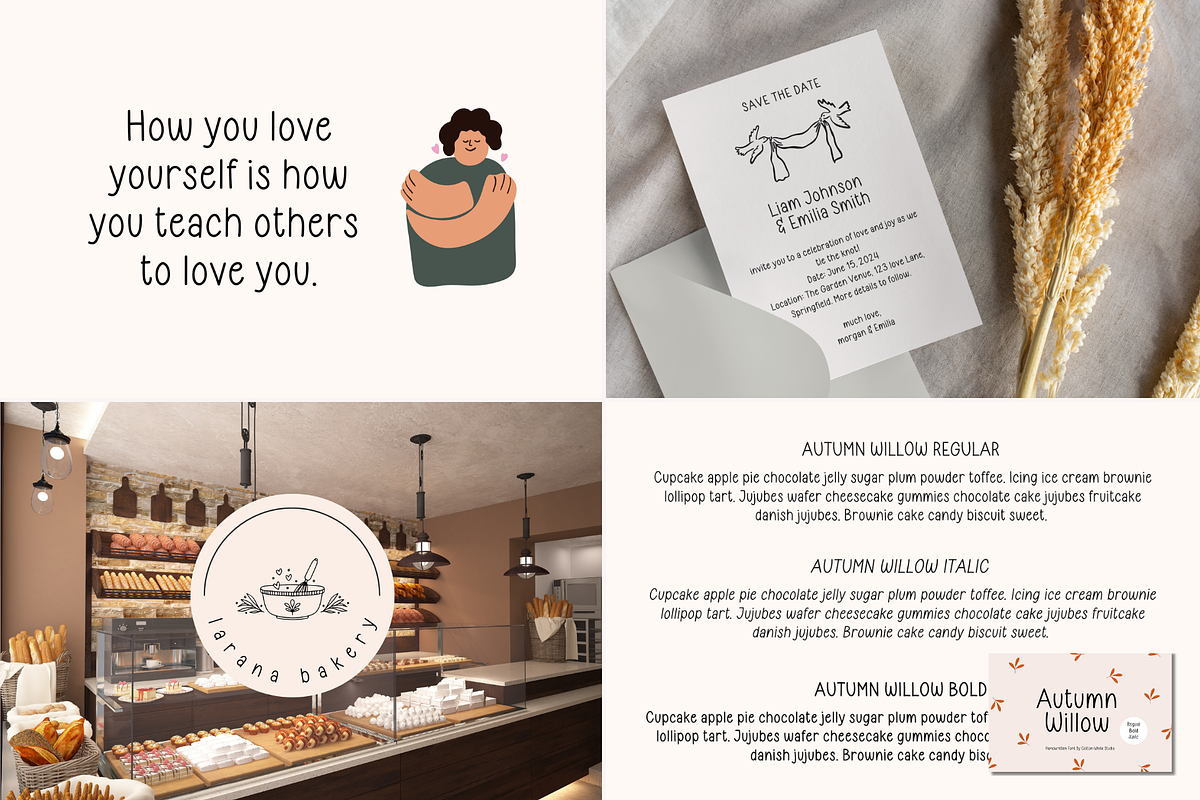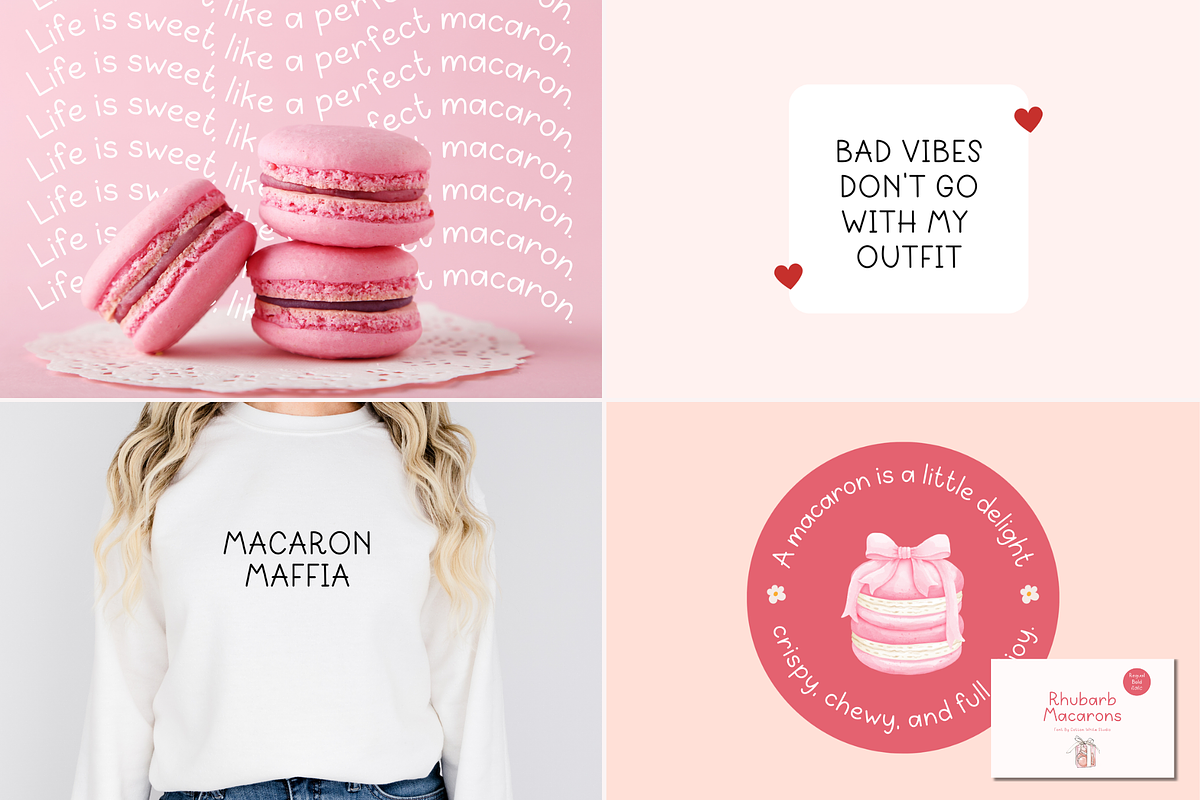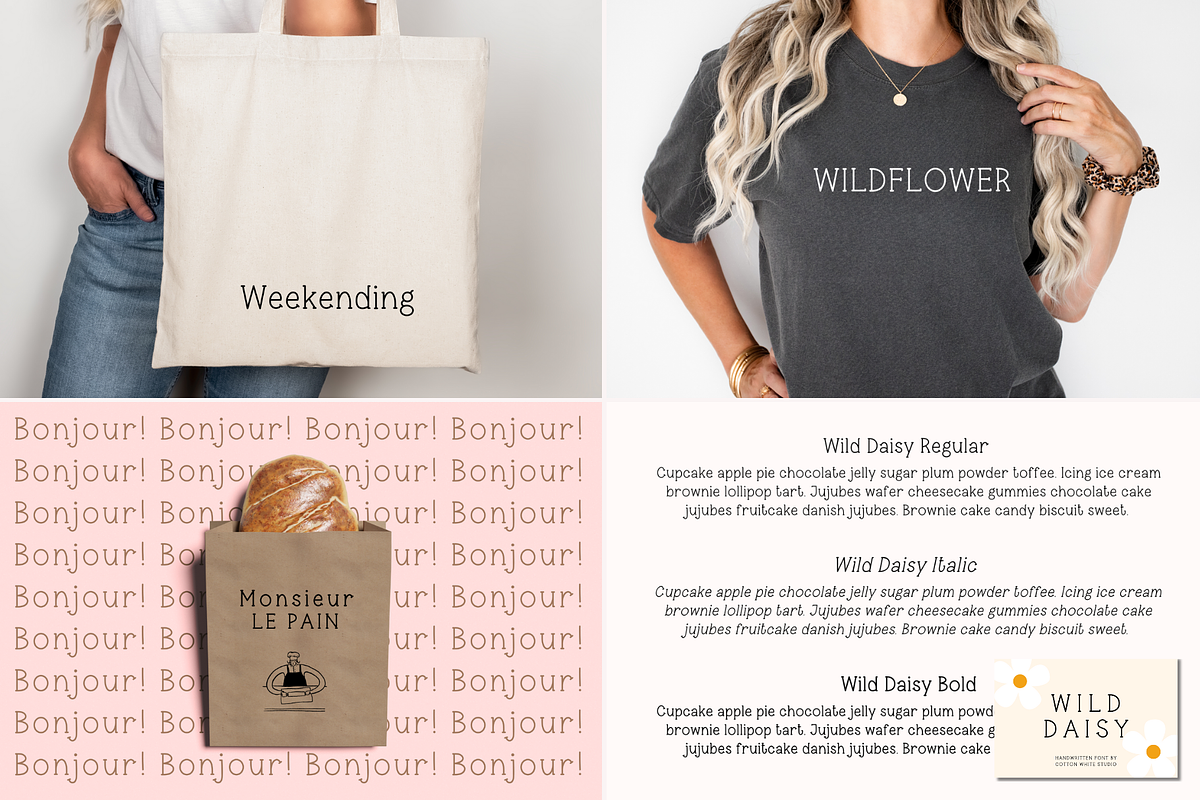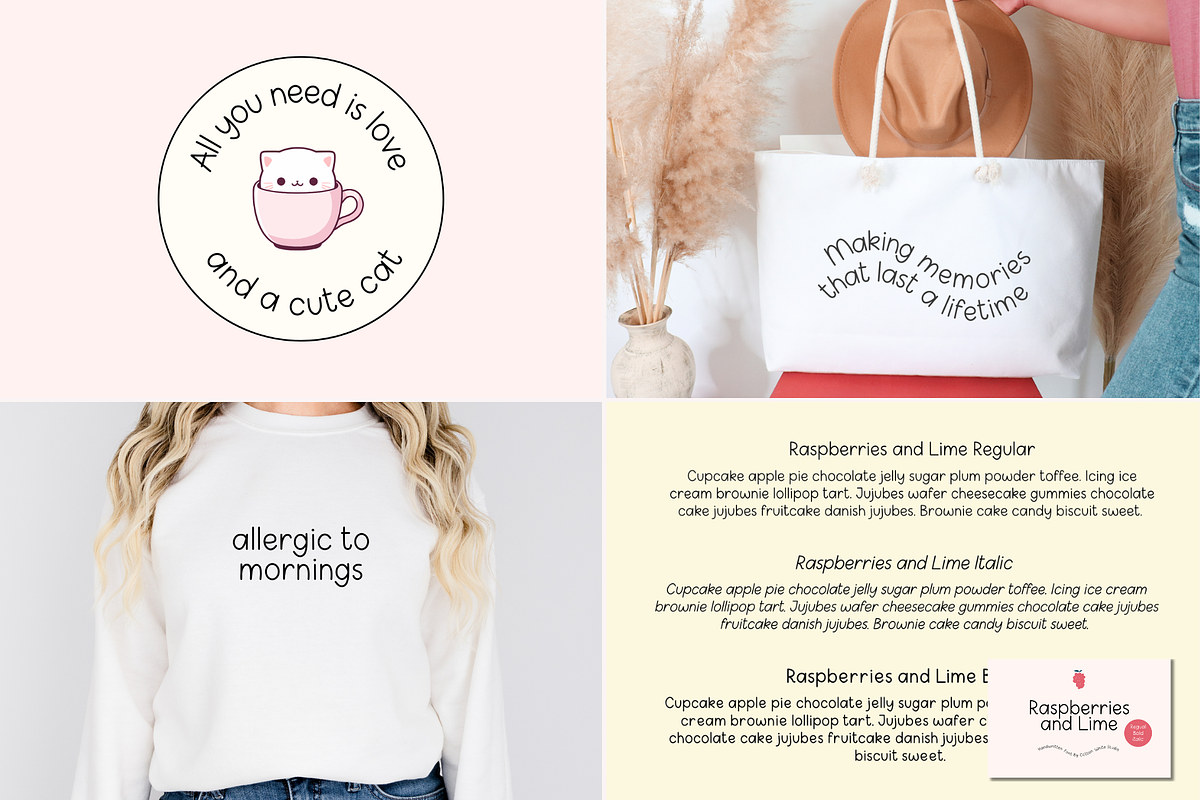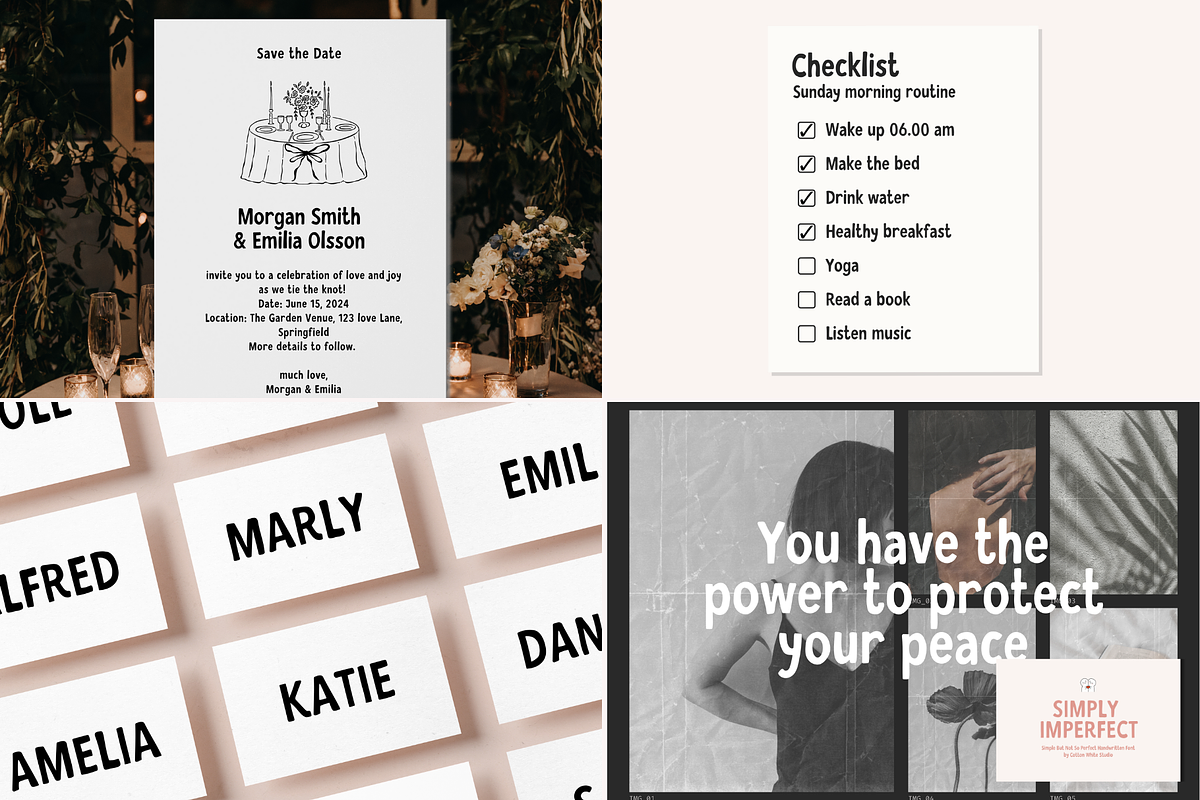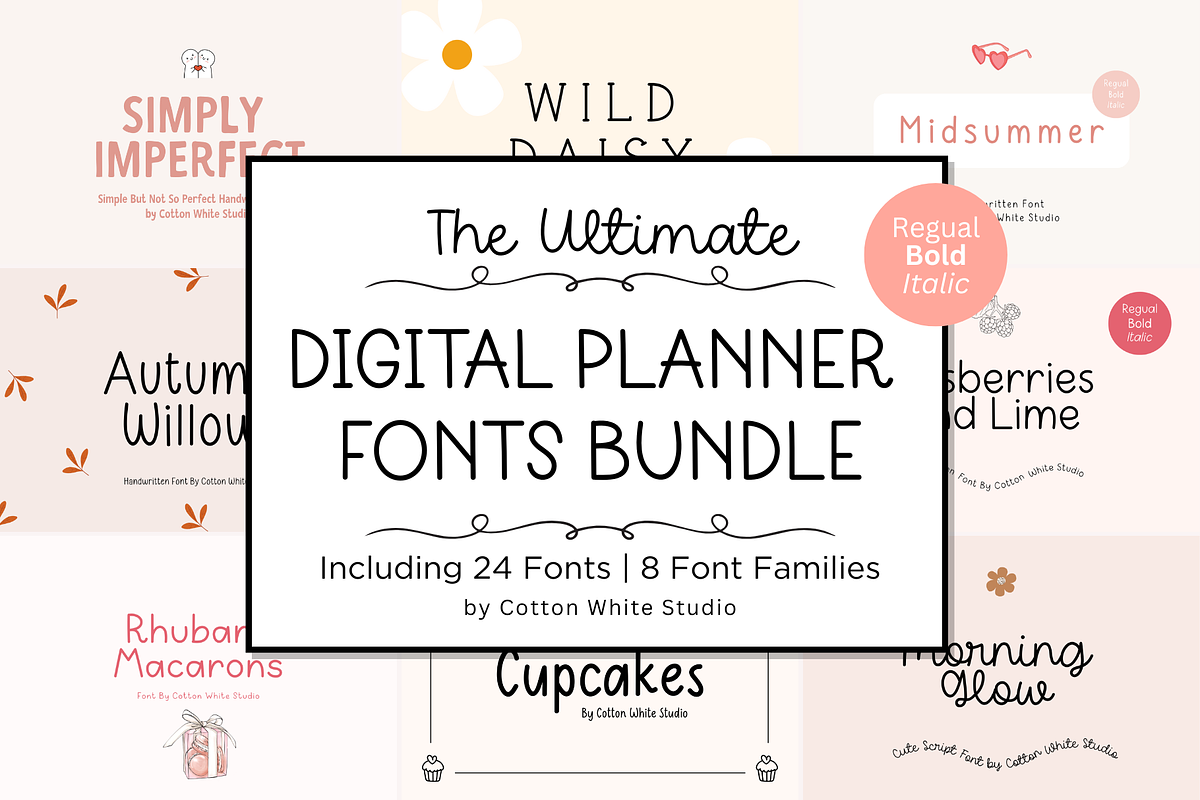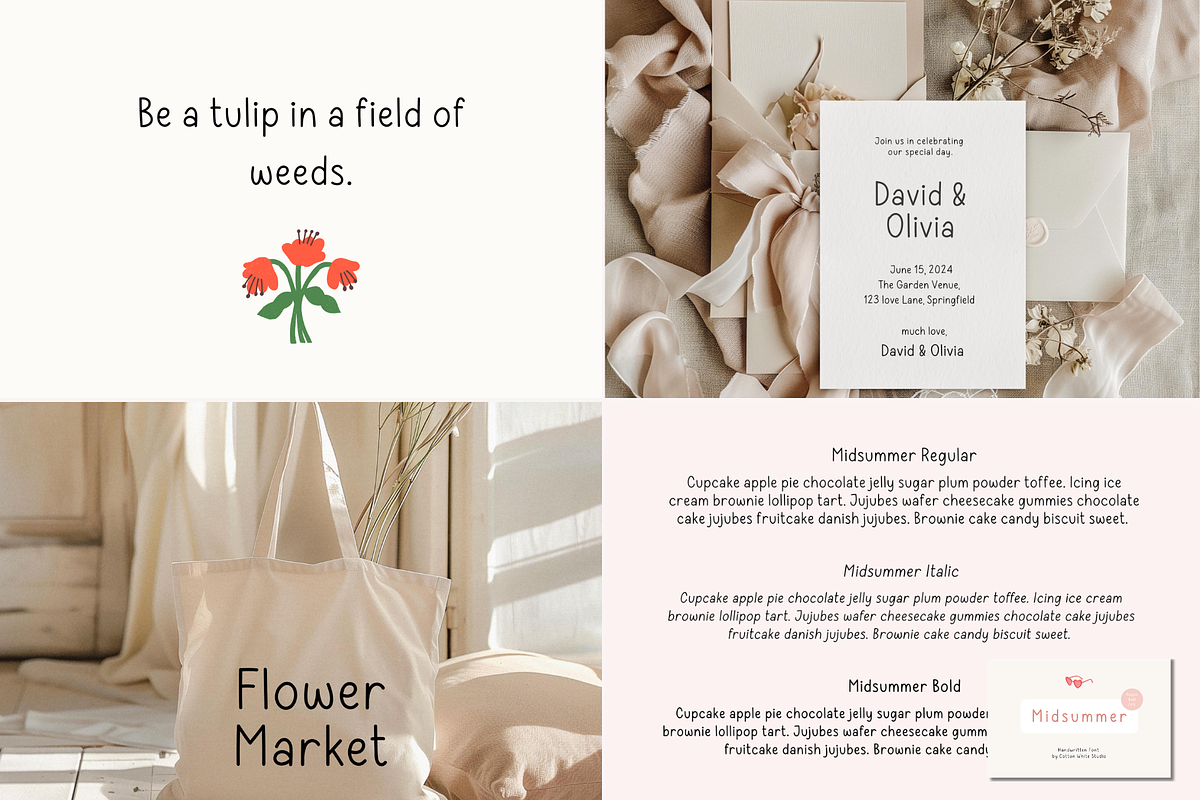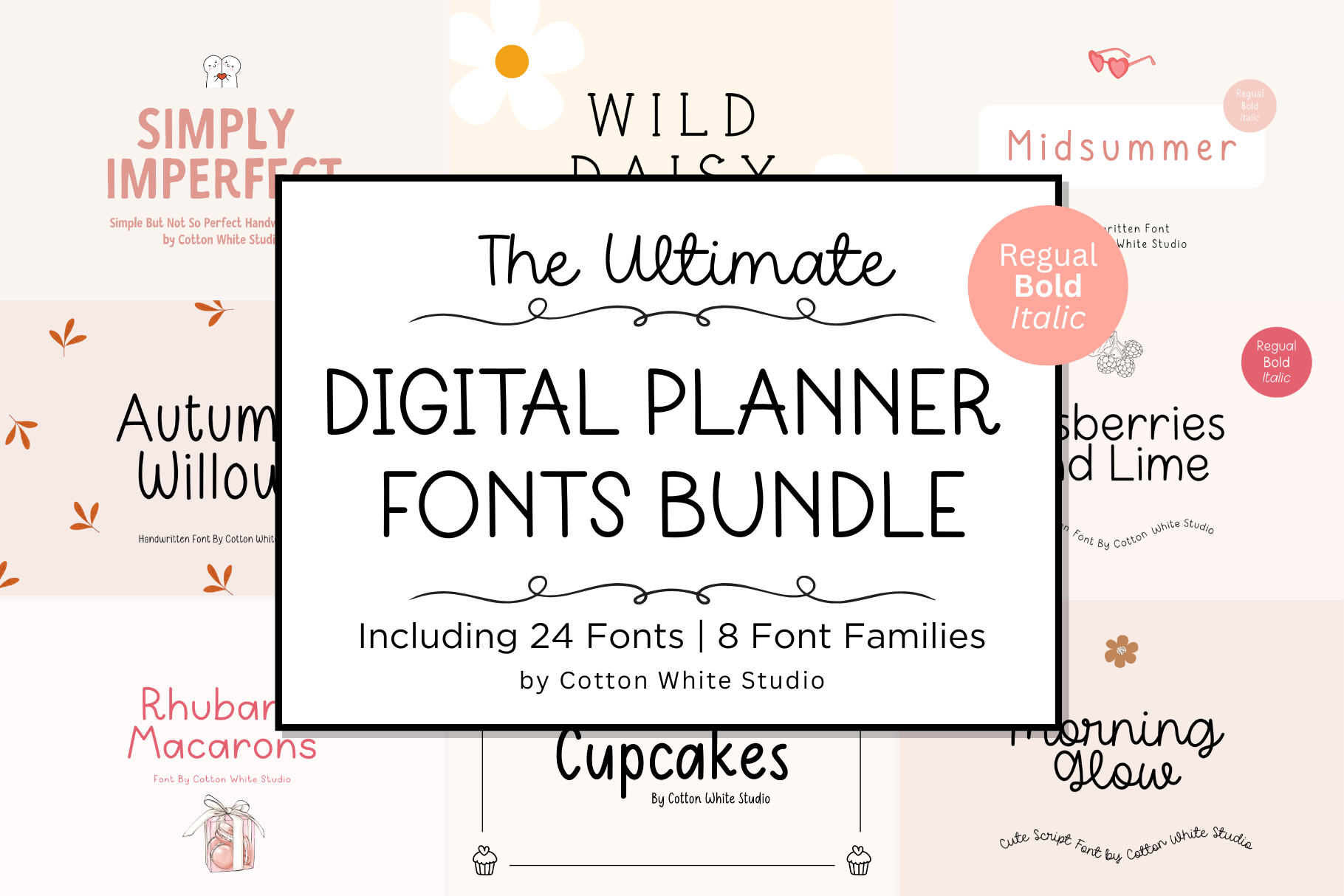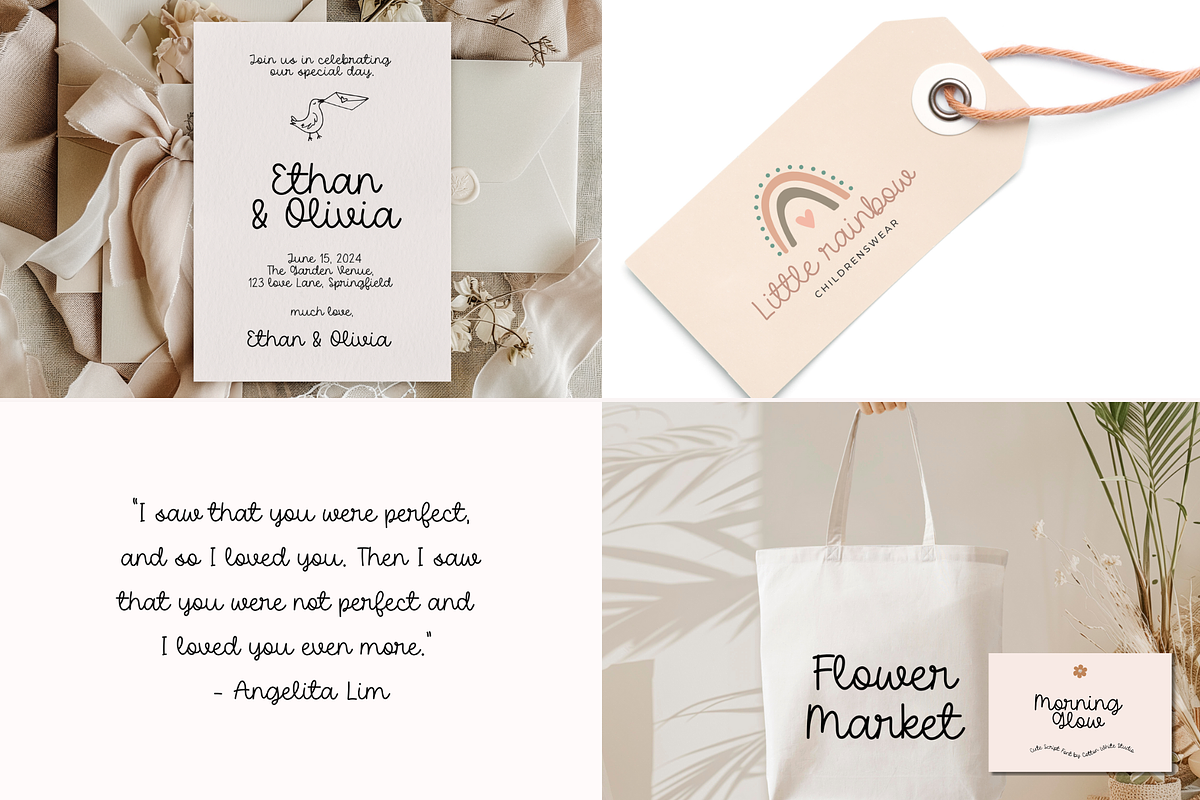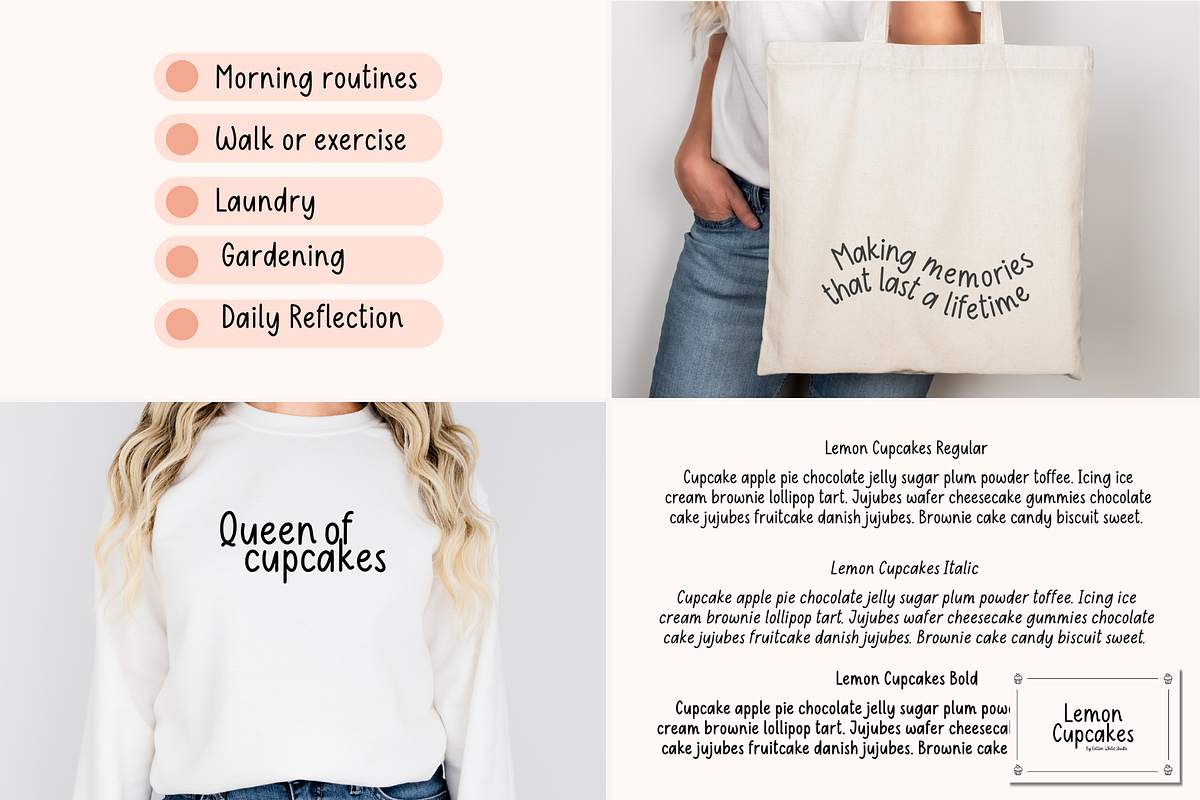
The Ultimate Digital Planner Fonts
A bundle of 8 unique handwritten font families perfect for digital notes/planners and other fun projects that require a cute handwriting style. All fonts included come in a regular, bold, and italic version.
Fonts Included: